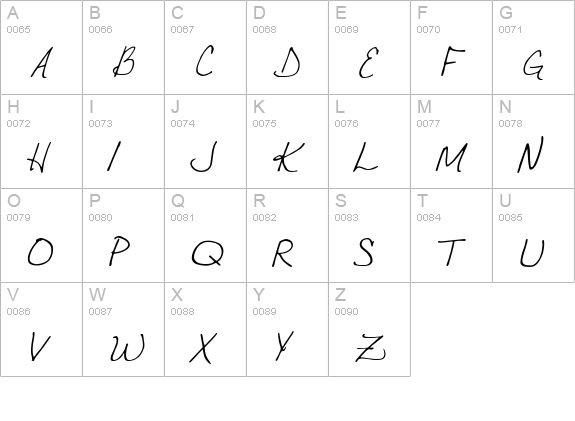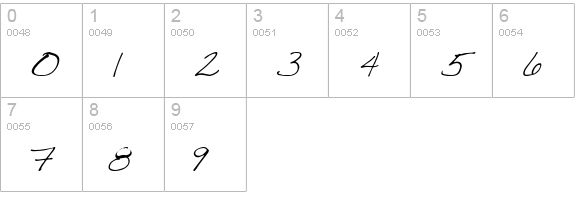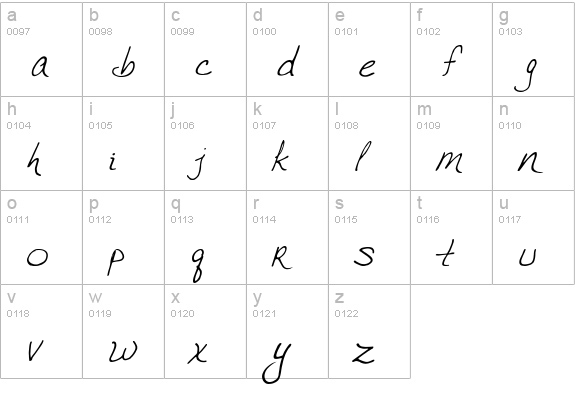
VTC JoeleneHand Regular Italic Font Details
VTC JoeleneHand Regular Italic is the standard, neutral, italic variant in the VTC typeface family \xE2\x80\x94 well suited to general body text, paragraphs, and standard typographic work.
VTC JoeleneHand Regular Italic font is a charming and whimsical typeface that adds a touch of elegance to any design project. With its delicate strokes and graceful curves, this font captures the essence of handwritten script in a unique and distinctive way. Perfect for adding a personal and artistic touch to wedding invitations, greeting cards, logos, and more, VTC JoeleneHand Regular Italic font stands out with its free-flowing and organic letterforms. It effortlessly combines the beauty of calligraphy with a modern twist, making it a versatile choice for both print and digital media. This font offers a wide range of characters, including uppercase and lowercase letters, numerals, punctuation marks, and special glyphs, allowing you to create visually appealing and engaging designs. Its italic style adds a touch of playfulness and sophistication, making it suitable for a variety of design projects. And the best part? VTC JoeleneHand Regular Italic font is freely available to download at FontsMarket.com. So, you can easily enhance your creative projects without breaking the bank. Whether you're a professional designer or a DIY enthusiast, this font is the perfect addition to your font collection. So why wait? Download VTC JoeleneHand Regular Italic font today and let your creativity soar with its beautiful and expressive letterforms.